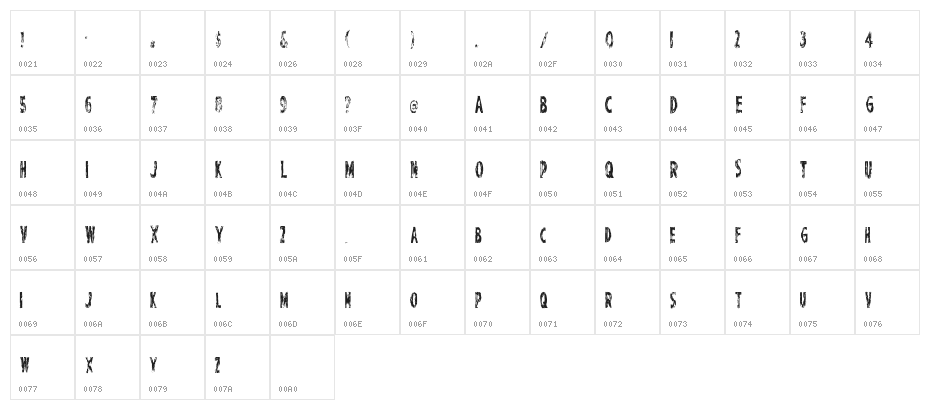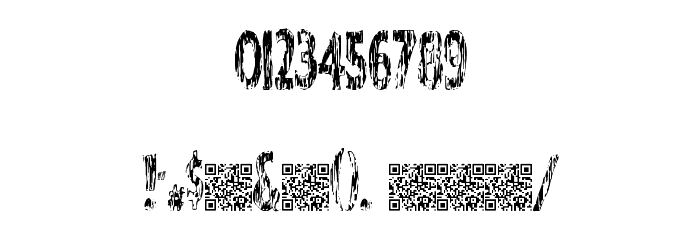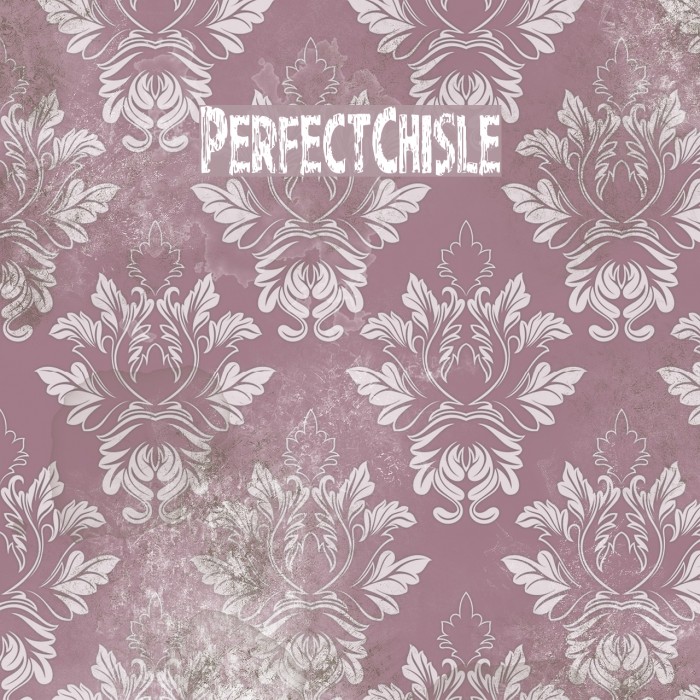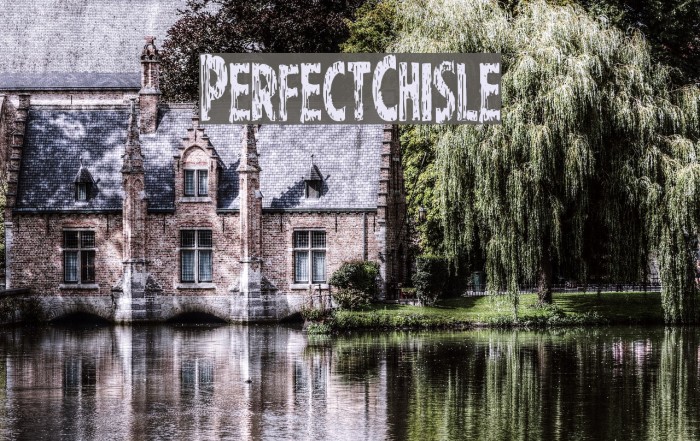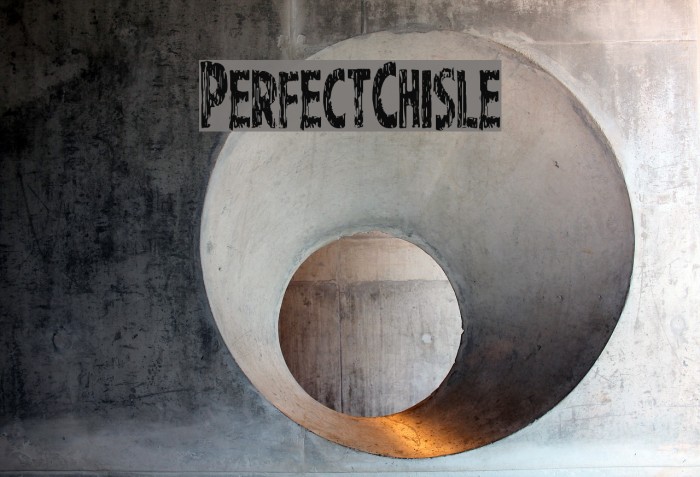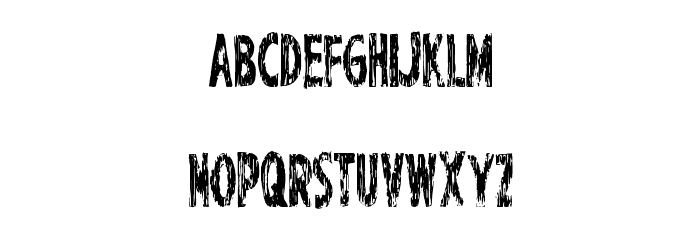
PerfectChisle Font
PerfectChisle Description
This font features a rugged, textured appearance reminiscent of chiseled stone or wood. Each character is uniquely distressed, giving it a handcrafted, organic feel. The uppercase and lowercase letters maintain a consistent style, with jagged edges and uneven lines that suggest a natural, weathered look. The numerals and special characters follow the same design principles, ensuring a cohesive aesthetic throughout. This font is particularly striking and eye-catching, making it ideal for projects that require a bold, rustic touch.
| Proposed Projects | Ideal for branding, posters, and signage that require a bold, rustic aesthetic. |